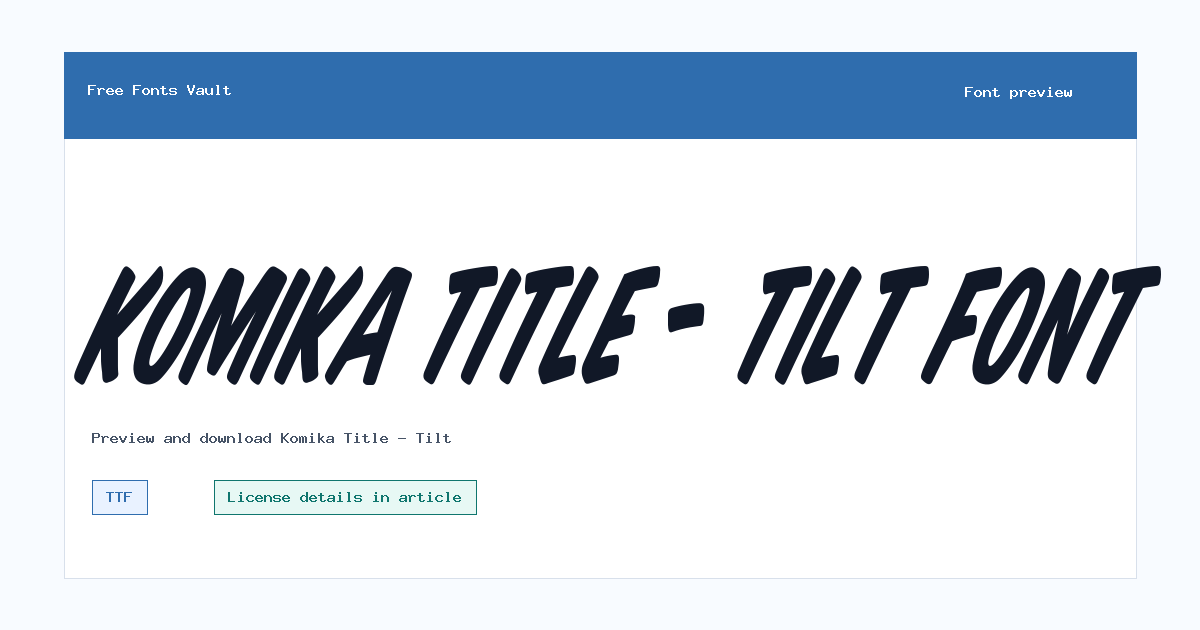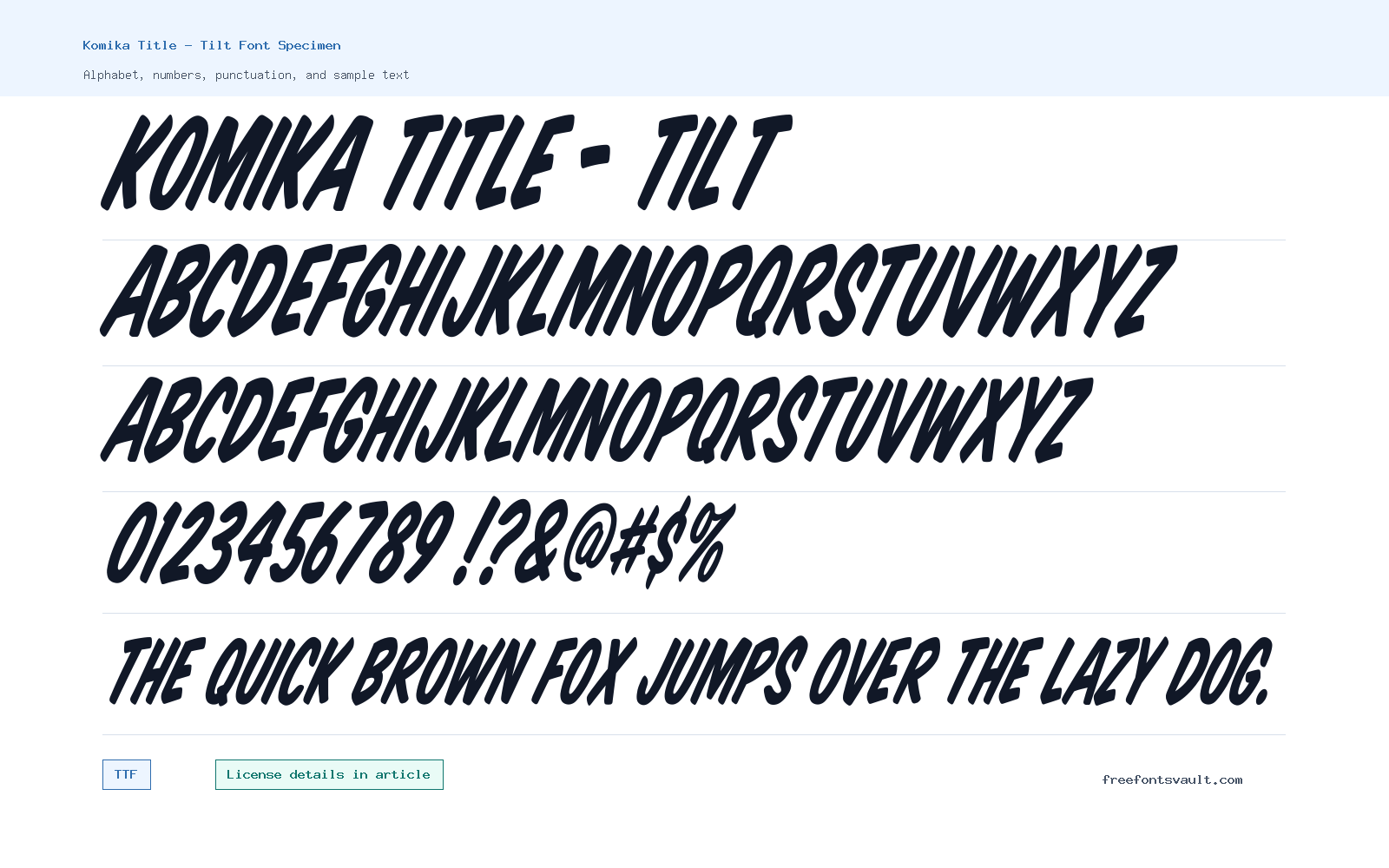
Komika Title - Tilt
Komika Title – Tilt font.
Komika Title – Tilt is a comic-style display font with a slanted, punchy look made for short, attention-grabbing text. It works best when you need a headline that feels energetic without becoming too hard to read.
About Komika Title – Tilt
Komika Title – Tilt belongs to the Komika Title family and uses a bold comic-title approach: compact letterforms, strong shapes, and a tilted stance that gives words a sense of motion. The Tilt cut is not a quiet reading face. It is meant for names, labels, covers, banners, poster lines, game-style headings, comic captions, and other places where a few words need to stand out quickly. Because the letters lean and carry a lively rhythm, it can give plain text a more playful tone without relying on extra effects.
- Comic-style display design with a tilted, energetic stance for headlines and short text.
- Part of the wider Komika Title family, which includes several related title styles such as Axis, Boogie, Brush, Emboss, Ghost, Shadow, Tall, Wide, and Wired.
- Best suited to display sizes where the angled shapes and comic rhythm can remain clear.
- Comic book titles and panel headings
- Poster headlines and event graphics
- YouTube thumbnails, social posts, and bold web banners
- Game, kids, hobby, or entertainment project titles
- Stickers, labels, badges, and short display phrases
- Fan-made graphics where no official brand association is implied
Keep it large, short, and deliberate. Try all caps, title case, numbers, and punctuation in the preview before using it in artwork. Avoid using it for long paragraphs, small body text, or crowded layouts; the slant and comic styling work better as a focal point than as continuous reading text.
What kind of font is Komika Title – Tilt?
Komika Title – Tilt is a comic-style display font. It is made for short headings, titles, and graphic text rather than long reading passages.
Is Komika Title – Tilt good for body text?
No. It is better for titles, covers, banners, badges, and short phrases. For paragraphs or small interface text, pair it with a cleaner text font.